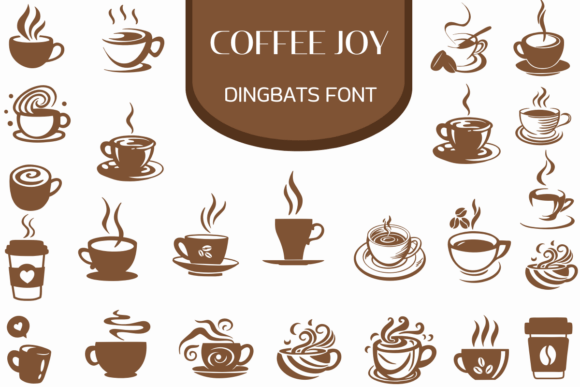
Coffee Joy Font: The Perfect Addition to Your Creative Projects
Coffee lovers, rejoice! Are you tired of using the same old fonts in your creative projects? Look no further than the Coffee Joy Font, a fun and cute dingbats font that’s sure to add a boost of energy and excitement to your designs. In this article, we’ll dive into the world of Coffee Joy Font, exploring its features, benefits, and uses, as well as provide tips on how to make the most of this delightful font.
What is Coffee Joy Font?
Coffee Joy Font is a unique and playful dingbats font that’s perfect for creative projects. It’s a collection of coffee-themed icons, including coffee cups, beans, and other related symbols, designed to add a touch of whimsy and fun to your designs.
- Fun and Cute Design: Coffee Joy Font features adorable and colorful designs that are sure to bring a smile to your face.
- Dingbats Font: This font is a type of dingbats font, which means it’s made up of symbols and icons rather than traditional letters and numbers.
- Coffee-Themed: As the name suggests, Coffee Joy Font is all about coffee, featuring a range of coffee-related icons that are perfect for coffee shops, cafes, and coffee enthusiasts.
Benefits of Using Coffee Joy Font
So, why should you use Coffee Joy Font in your creative projects? Here are just a few benefits:
- Adds Visual Interest: Coffee Joy Font is a great way to add visual interest to your designs, creating a unique and eye-catching look that’s sure to grab attention.
- Perfect for Coffee-Themed Projects: Whether you’re designing a logo for a coffee shop or creating a social media post for a coffee brand, Coffee Joy Font is the perfect choice.
- Versatile: Coffee Joy Font can be used in a range of creative projects, from branding and advertising to packaging and web design.
Uses for Coffee Joy Font
Coffee Joy Font is a versatile font that can be used in a range of creative projects, including:
- Branding and Advertising: Use Coffee Joy Font to create eye-catching logos, advertisements, and marketing materials for coffee shops, cafes, and coffee brands.
- Social Media Graphics: Add a touch of fun and personality to your social media graphics, including Facebook posts, Instagram stories, and Twitter headers.
- Packaging Design: Use Coffee Joy Font to create unique and eye-catching packaging for coffee products, including coffee beans, coffee grounds, and coffee-related merchandise.
- Web Design: Add a touch of whimsy and fun to your website with Coffee Joy Font, using it to create headings, titles, and other design elements.
Tips for Using Coffee Joy Font
Here are a few tips for using Coffee Joy Font in your creative projects:
- Use it Sparingly: While Coffee Joy Font is fun and playful, it’s best to use it sparingly to avoid overwhelming your design.
- Pair it with Other Fonts: Coffee Joy Font pairs well with other fonts, including bold and sans-serif fonts, to create a unique and eye-catching look.
- Experiment with Colors: Coffee Joy Font looks great in a range of colors, so don’t be afraid to experiment and find the perfect color scheme for your design.
- Have Fun: The most important thing is to have fun with Coffee Joy Font! Get creative and enjoy the process of designing with this delightful font.
In conclusion, Coffee Joy Font is a fun and cute dingbats font that’s perfect for creative projects. With its coffee-themed icons, easy-to-use design, and versatile applications, it’s a great addition to any designer’s toolkit. So why not give it a try and see the joy it can bring to your designs?